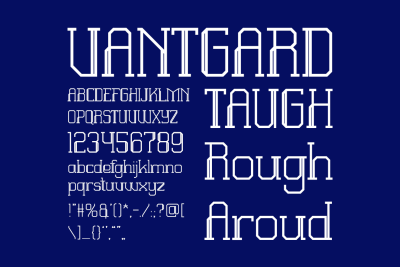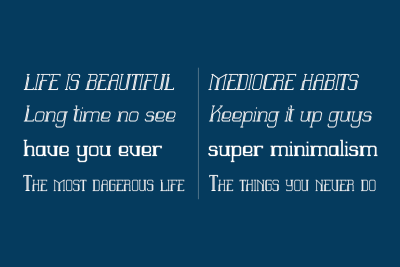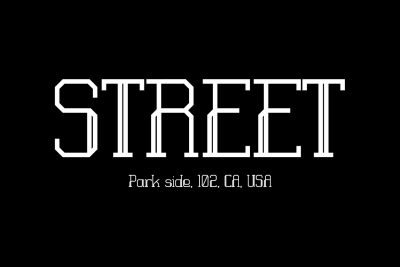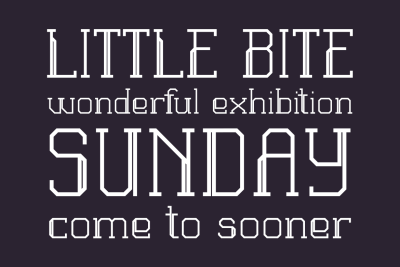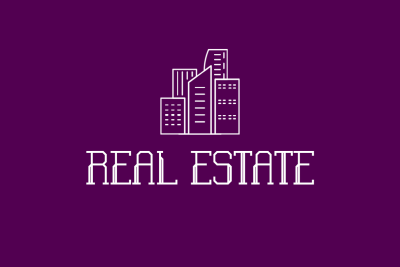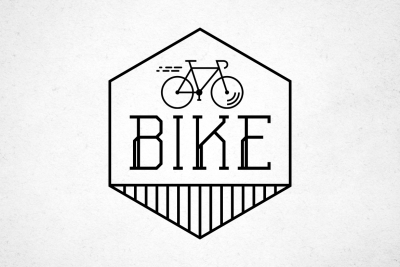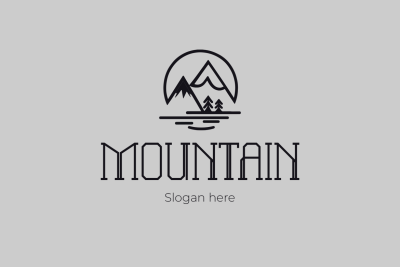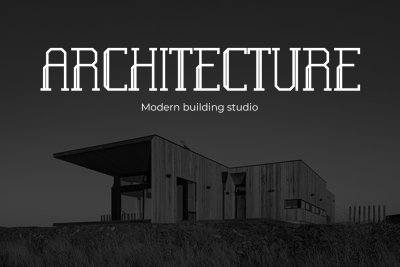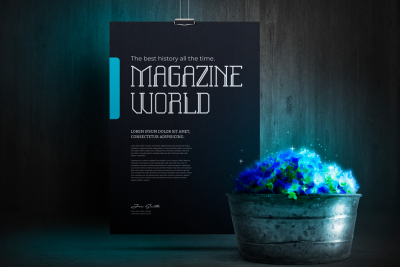
Futuristic Font Vantgard is the ideal choice for designers seeking a clean and elegant display font. Not only does it offer geometric precision, but it also brings a subtle industrial style to modern designs. This combination makes it perfect for projects that require a strong and impactful visual identity. Whether youโre designing logos, posters, or digital branding, Vantgard delivers a professional and creative edge.
Furthermore, the sharp, linear letterforms of Vantgard combine boldness with high legibility. As a result, it becomes an excellent option for headlines and body text in contemporary designs. Designers can seamlessly incorporate it into technology projects, editorial layouts, or even high-end packaging. Its contemporary style blends effortlessly into futuristic and sleek visual concepts. Consequently, this font adds sophistication and clarity to every design it touches.
Futuristic Font Vantgard Perfect for
In addition to its versatility, Futuristic Font Vantgard works exceptionally well for digital branding. Startups, tech companies, and creative agencies can use it to design impactful logos and campaigns. More importantly, its sharp design enhances websites, app interfaces, and promotional materials. On larger scales, such as billboards or banners, it maintains a commanding visual presence. At the same time, it adapts well to smaller, screen-friendly formats.
Moreover, Vantgard excels in editorial and print layouts. Its structured style gives books, magazines, and advertising materials a refined, modern look. For designers working on posters, banners, or product packaging, Vantgardโs clean lines ensure eye-catching and polished results. As a result, your projects will align with current design trends while maintaining a timeless appeal.
Additionally, the futuristic style of Vantgard is ideal for creative industries. Entertainment, fashion, and technology projects benefit greatly from its sharp and progressive design. Its unique display style naturally draws attention and resonates with modern audiences. Therefore, by choosing Vantgard, you ensure that your designs stand out with confidence and innovation.
In conclusion, Futuristic Font Vantgard combines style, clarity, and versatility. Thanks to its clean lines and modern aesthetic, it becomes the perfect choice for branding, editorials, and creative layouts. Choose Vantgard today to give your next project a refined and futuristic edge.